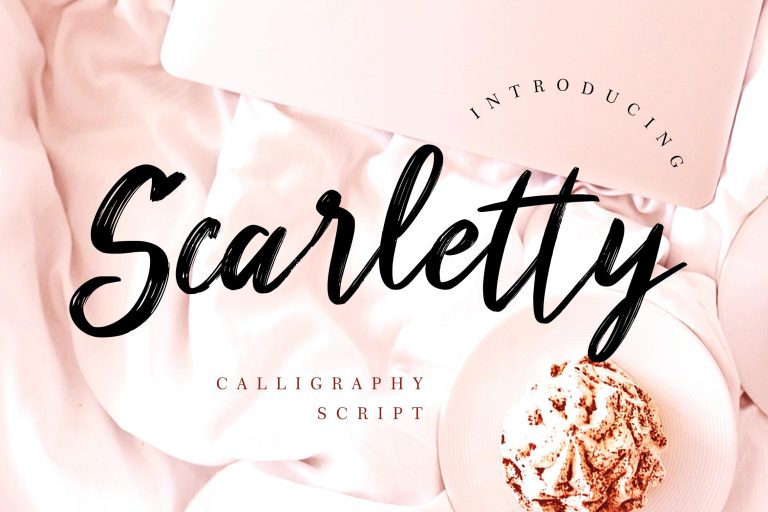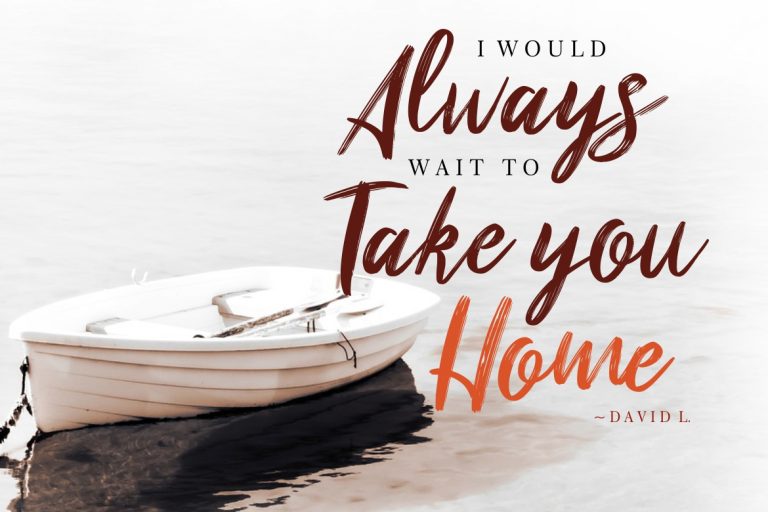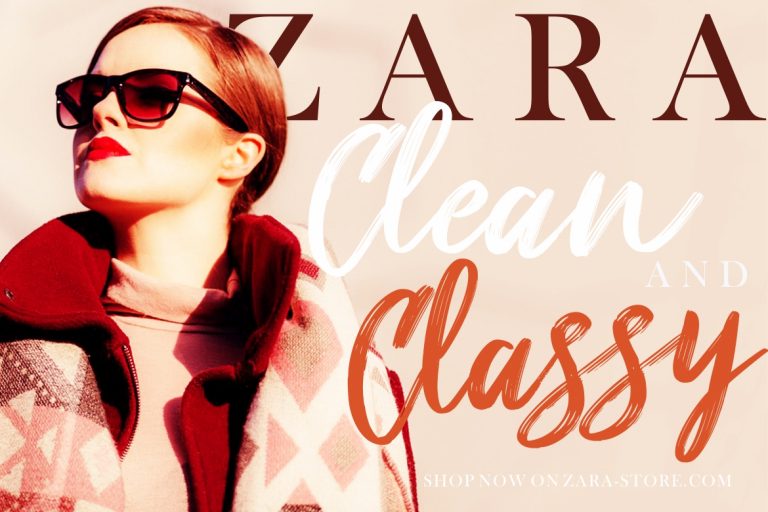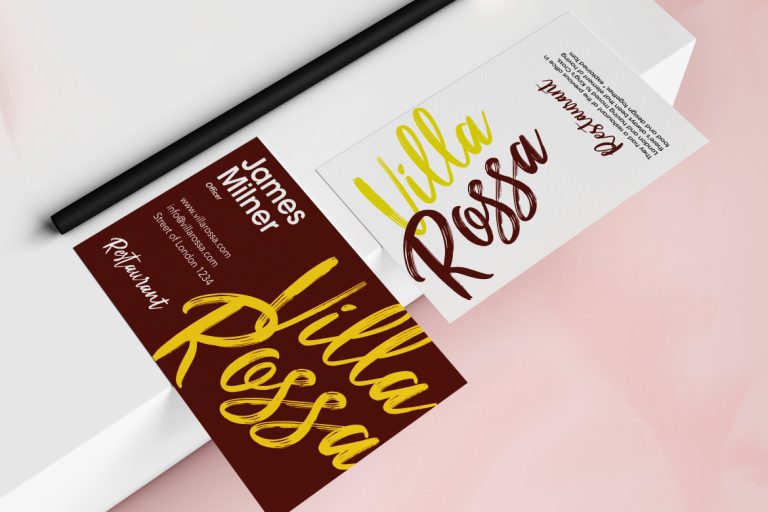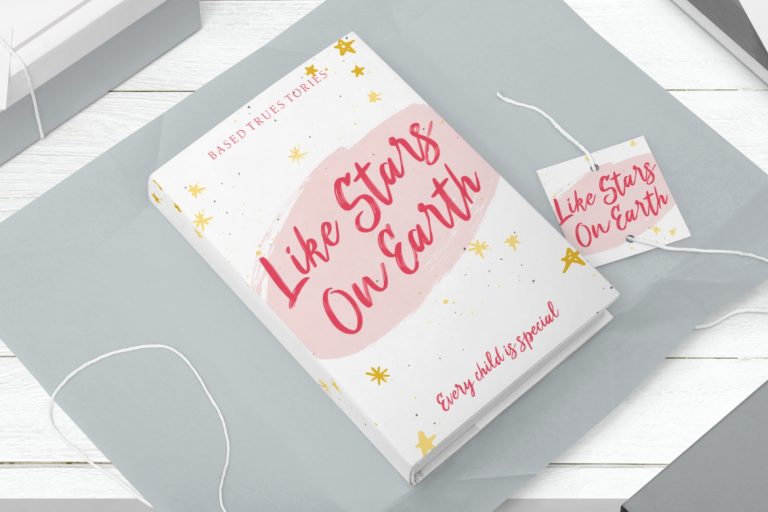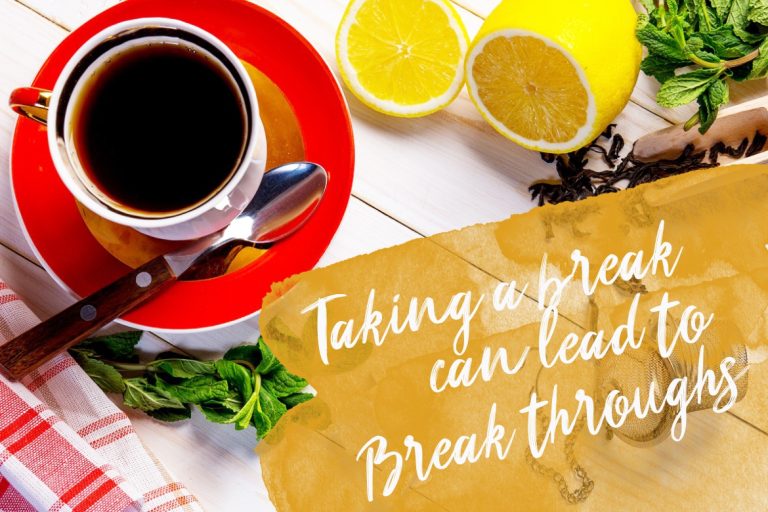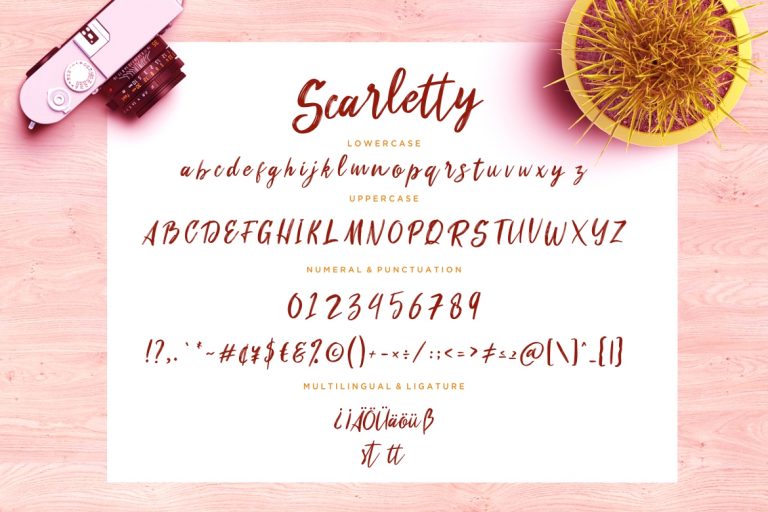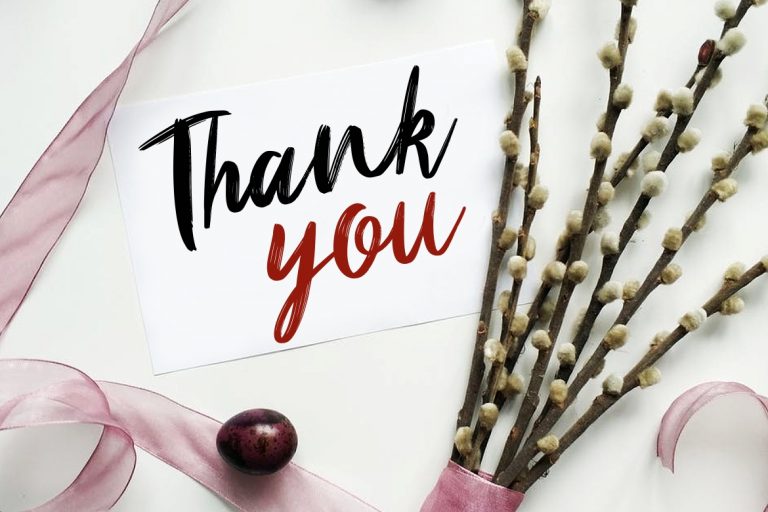
Scarletty is handwritten calligraphy brush font with natural movement will make your project looks awesome.
Scarletty is perfect for branding projects, logo, wedding designs, social media posts, advertisements, product packaging, product designs, label, photography, watermark, invitation, stationery and any projects that need handwriting taste.
- Ligature
- Fonts include multilingual support for; ä ö ü Ä Ö Ü ß ¿ ¡
Scarletty Calligraphy Brush